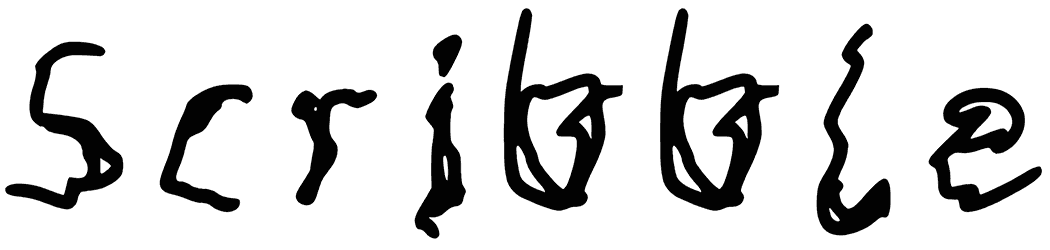
Need a font to raise adrenaline and make hearts pound? So if it’s the case, XXII Scratch would help you a lot. This one shares a brutal and gruesome mood so that you can utilize it for horror movies, books, Halloween flyers, or other related projects. Notice that it doesn’t entail small letters, give it a try, and for more emo fonts, discover RB.
This Font is created by Lecter Johnson by doubletwo.net.